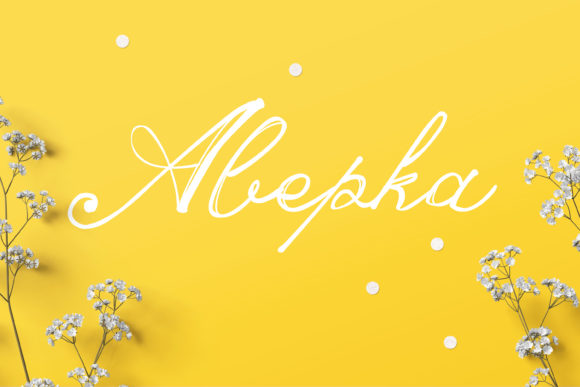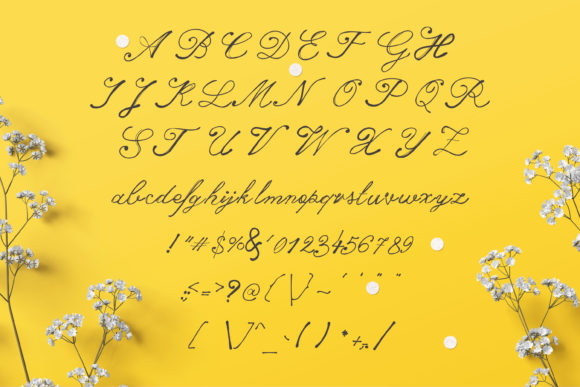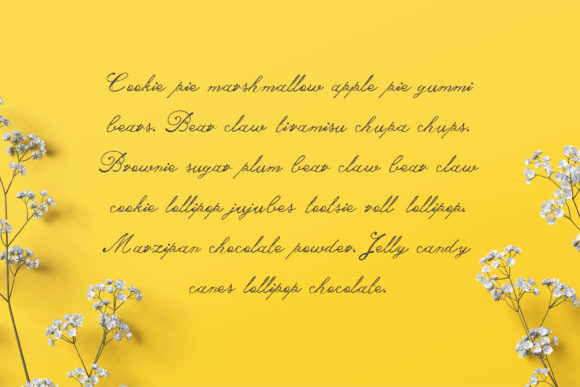
Abepka Font
About Abepka Font
Abepka is a sweet, soft hand-lettered script font. Whether you’re looking for fonts for Instagram or calligraphy scripts for DIY projects, Abepka will turn any creative idea into a true piece of art!